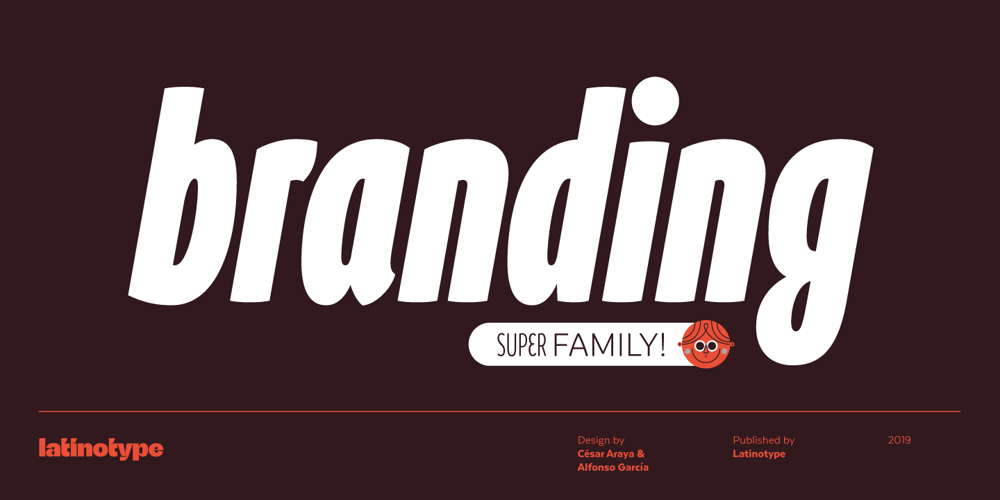
Branding SF Font Family was designed by Alfonso García, César Araya and published by Latinotype. Branding SF contains 56 styles and family package options. Branding Super Family is an extension of the Branding project, including new variables that cater to a wide array of requirements, still maintaining its essence. It is a super family for modern needs! Additional to its particular design, different widths are included: now Branding Ultra Condensed is a reality. The project also considers a variety of alternate characters, making Branding Super Family a great tool for graphic designers and art directors. It is ideal for use in logotypes, isotypes, short texts, and others. Branding Super Family is a Sans Serif spurless font with medium-large x-height, straight curves and convex terminals. It has 7 weights and 4 widths that vary from thin to black, and from ultra condensed to medium, each with their matching italics. It also includes a set of 544 characters supporting 128 languages. OpenType characteristics include European accents, old style numbers and 4 sets of alternates.